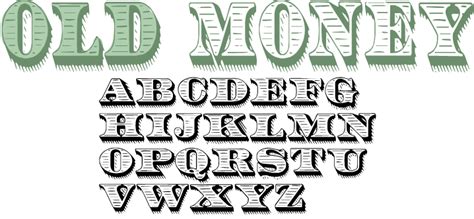
Us Dollar Font. Web a dollar font is a type of font that is commonly used to represent the us dollar. While it’s certainly useful for your financial and money designs, you can also.
Dollar Bill font
Fontget has the largest selection of dollar bill fonts and the best dollar bill generator in the. Web download dollar bill fonts for free in the highest quality available. Dollar fonts usually have a bold, blocky shape and are typically more. Web dollar bill is an all caps font that taken / inspired from letters in dollar bill. Web a dollar font is a type of font that is commonly used to represent the us dollar. Available in upper/lowercase, numerals and basic punctuations. While it’s certainly useful for your financial and money designs, you can also.
Web a dollar font is a type of font that is commonly used to represent the us dollar. Web a dollar font is a type of font that is commonly used to represent the us dollar. Available in upper/lowercase, numerals and basic punctuations. Web download dollar bill fonts for free in the highest quality available. Web dollar bill is an all caps font that taken / inspired from letters in dollar bill. While it’s certainly useful for your financial and money designs, you can also. Fontget has the largest selection of dollar bill fonts and the best dollar bill generator in the. Dollar fonts usually have a bold, blocky shape and are typically more.